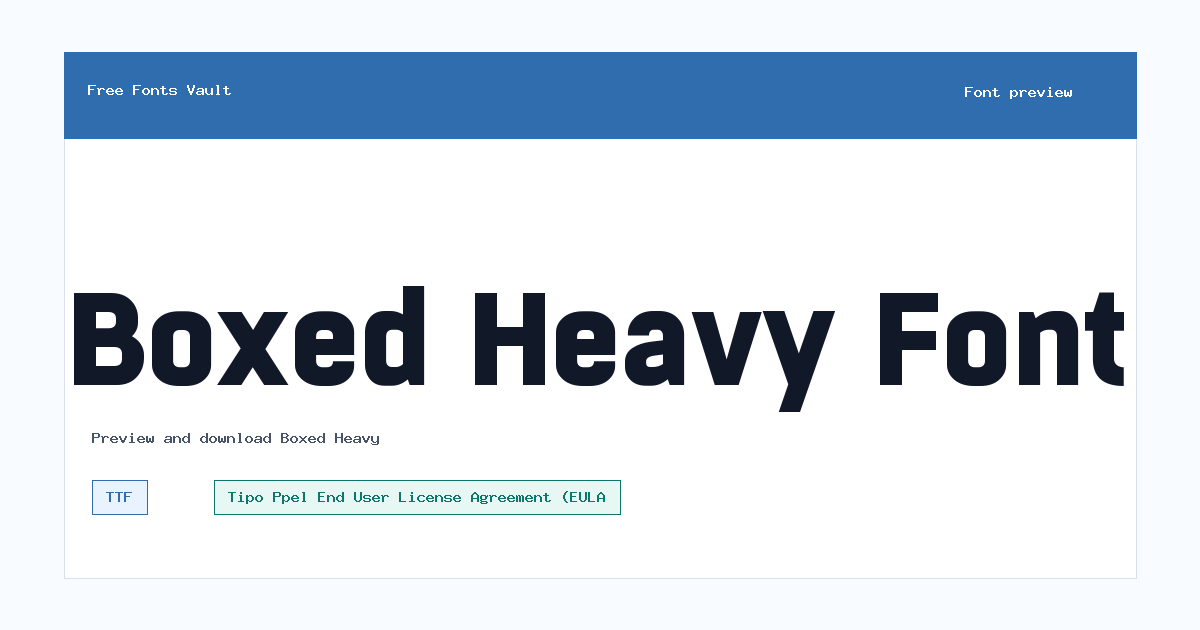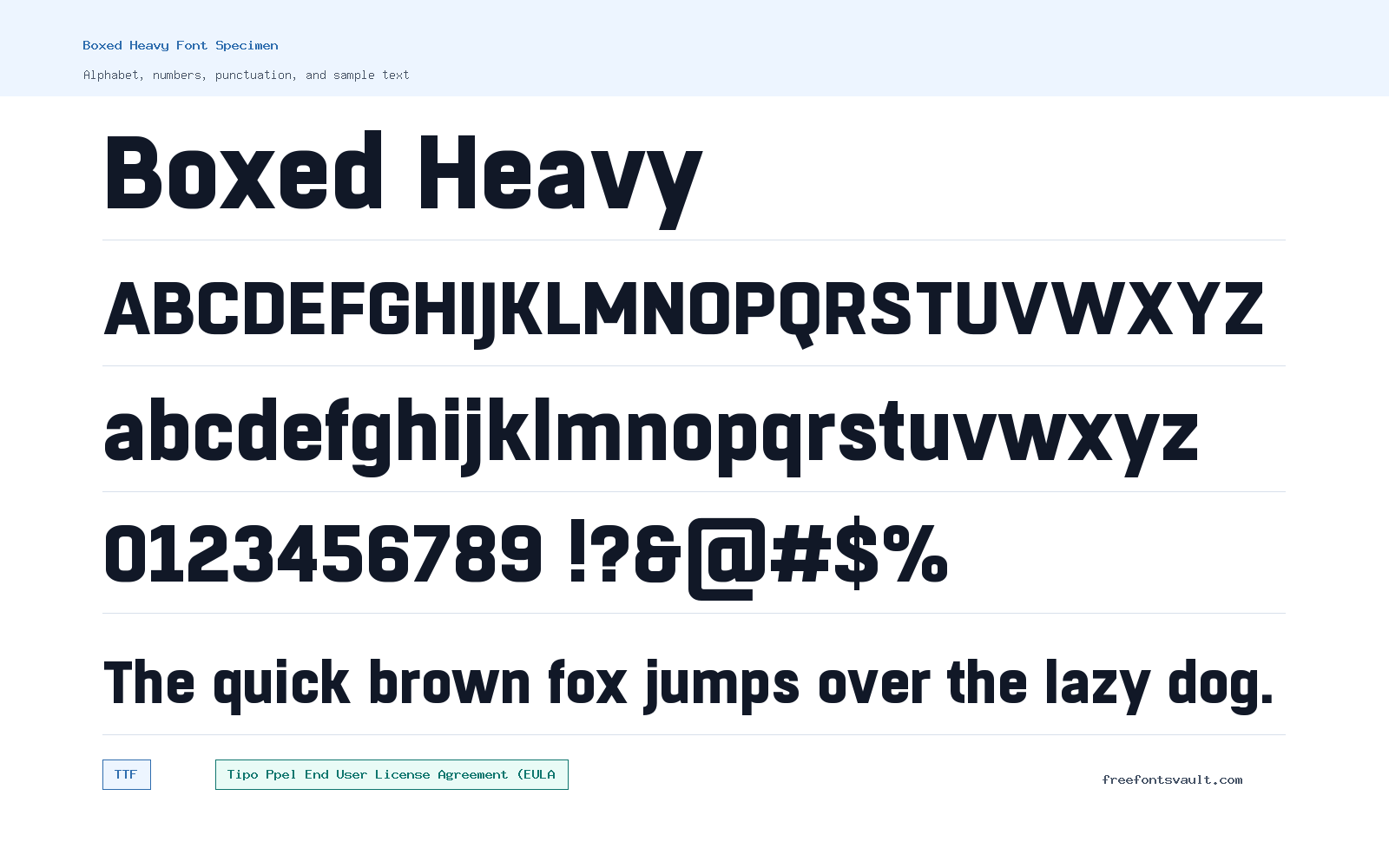
Boxed Heavy
Boxed Heavy Font
Boxed Heavy is a bold display font built for short, high-impact text. Use the preview tool to test names, titles, and logo-style words before downloading.
About Boxed Heavy
Boxed Heavy comes as a TrueType font file with a heavy 800 weight. That makes it a better fit for compact display settings than for long reading text. Try it with all caps, short words, and tight headlines to see how much space the letters need at different sizes.
This font is most useful when you want strong text that can hold attention in a poster, cover, banner, thumbnail, or title graphic. Keep supporting text in a simpler font so Boxed Heavy can do the visual work without making the whole design feel too dense.
Boxed Heavy is suited to compact, strong display typography where the word needs to feel solid and direct. It can work for badges, posters, sports-style graphics, labels, thumbnails, signage mockups, and title treatments that need weight without a delicate or formal mood.
Heavy fonts need room around them. Test Boxed Heavy with the final word length, then check whether counters, spacing, and punctuation remain clear at the size you plan to use. A strong typeface can anchor a design, but it usually works better when surrounding text is lighter and simpler.
• Heavy 800 weight for strong headline and display use
• Posters, title cards, banners, and cover text
• Short branding-style words, labels, badges, and social graphics
Boxed Heavy is credited to Josep Patau Bellart, with Tipo Ppel listed as the foundry.
Test the font at the exact size you plan to use. Heavy display fonts can look excellent in short words but may become hard to read in sentences, small buttons, or crowded layouts. Pair it with a clean sans serif or neutral text face for descriptions, menus, and body copy. Try Boxed Heavy on both light and dark backgrounds. If the letters begin to merge at small sizes, increase spacing, use fewer words, or reserve it for the largest title line only.
What kind of projects is Boxed Heavy best suited for?
It is best for short display text such as posters, covers, banners, labels, and title graphics where a heavy font can be used at a large size.
Who designed Boxed Heavy?
The font is credited to Josep Patau Bellart.